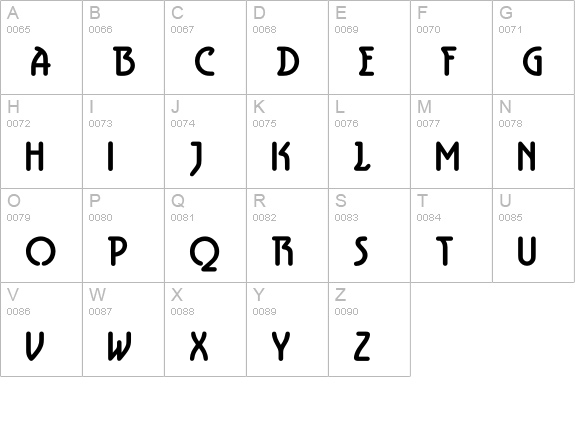
Aerolite Bold Font Details
Aerolite Bold is a strong, high-contrast variant in the Aerolite typeface family \xE2\x80\x94 well suited to headlines, attention-grabbing titles, and strong calls-to-action.
Introducing Aerolite Bold, a striking and versatile font that is sure to make a bold statement in any design project. This modern typeface combines sleek lines with a touch of elegance, creating a perfect balance between professionalism and creativity. Aerolite Bold is a must-have for designers and creatives who want to make a lasting impression. Its strong and commanding presence demands attention, while its clean and crisp letterforms ensure readability at any size. Whether you're designing a logo, a website, or a poster, Aerolite Bold will effortlessly elevate your project to new heights. What sets Aerolite Bold apart is not only its stunning aesthetics, but also its availability as a free download at FontsMarket.com. This means that you can enjoy the benefits of this exceptional font without any cost. It's a rare opportunity to have access to such a high-quality typeface that is both visually captivating and freely accessible. With its wide range of weights and styles, Aerolite Bold offers endless possibilities for customization. Whether you prefer a bold and impactful look or a more subtle and refined approach, this font can effortlessly adapt to your creative vision. Its versatility makes it suitable for a variety of design projects, from branding and packaging to editorial and advertising. Don't miss out on the opportunity to enhance your design projects with the timeless appeal of Aerolite Bold. Download it for free today at FontsMarket.com and unlock a world of possibilities for your creative endeavors. Experience the power of this exceptional font and let it take your designs to new heights.